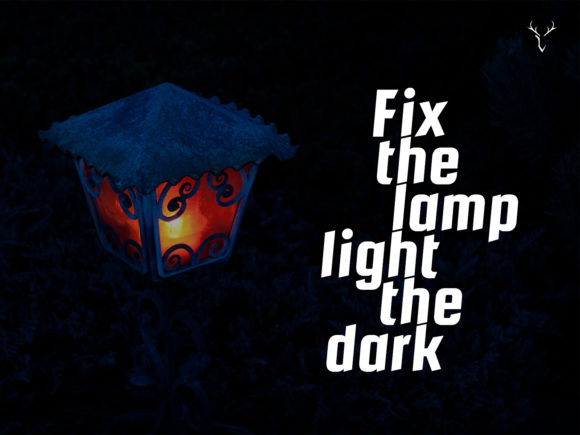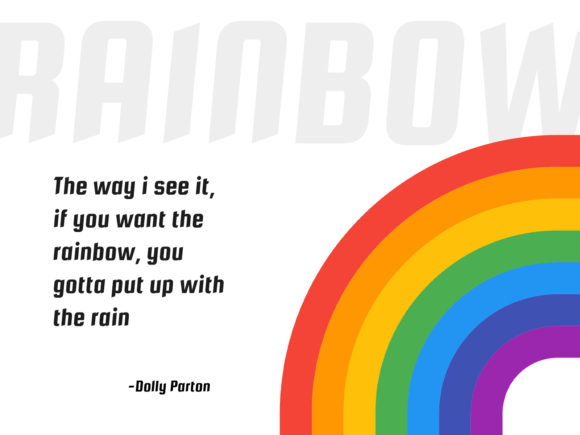
Discover the Power of Grey Font: Elevate Your Designs with a Modern Sans Serif Typeface
In the world of typography, fonts play a crucial role in conveying messages, expressing creativity, and capturing attention. For designers, crafters, and marketers, finding the perfect font can be a daunting task. However, if you’re looking for a modern and unique sans serif font that can elevate your designs, look no further than Grey Font. In this article, we’ll explore the features, benefits, and uses of Grey Font, and why it’s becoming a popular choice among designers and crafters.
What is Grey Font?
Grey Font is a modern sans serif font that exudes simplicity, elegance, and sophistication. Its clean lines, rounded edges, and balanced proportions make it perfect for a wide range of design applications, from headlines and branding to logotypes and marketing graphics. With its unique and distinctive style, Grey Font can help you create outstanding logos, promotional content, and visual materials that grab attention and leave a lasting impression.
Key Features of Grey Font
So, what makes Grey Font stand out from other sans serif fonts? Here are some of its key features:
- Modern and unique design: Grey Font boasts a fresh and contemporary design that’s perfect for modern brands and designs.
- Sans serif style: The font’s sans serif style gives it a clean and minimalist look that’s ideal for digital and print applications.
- High legibility: Grey Font is designed to be highly legible, making it perfect for body text, headlines, and titles.
- Versatile: The font is suitable for a wide range of design applications, from logos and branding to marketing graphics and promotional materials.
Uses of Grey Font
Grey Font is an incredibly versatile font that can be used in various design applications. Here are some of the ways you can use Grey Font:
- Headlines and titles: Use Grey Font to create bold and eye-catching headlines that grab attention.
- Branding and logotypes: Grey Font is perfect for creating unique and memorable brand identities and logotypes.
- Marketing graphics: Use Grey Font to create stunning marketing graphics, such as brochures, flyers, and posters.
- Logos: Grey Font is ideal for creating modern and sleek logos that represent your brand.
- Promotional materials: Use Grey Font to create promotional materials, such as business cards, letterheads, and envelopes.
Benefits of Using Grey Font
So, why should you choose Grey Font for your design projects? Here are some of the benefits of using Grey Font:
- Unique and distinctive style: Grey Font offers a fresh and unique style that sets it apart from other sans serif fonts.
- High versatility: The font is suitable for a wide range of design applications, making it a great addition to your font library.
- Easy to read: Grey Font is designed to be highly legible, making it perfect for body text and headlines.
- Modern and sophisticated look: Grey Font gives your designs a modern and sophisticated look that’s perfect for contemporary brands.
In conclusion, Grey Font is a modern and unique sans serif font that’s perfect for designers, crafters, and marketers looking to elevate their designs. With its clean lines, balanced proportions, and high legibility, Grey Font is suitable for a wide range of design applications, from headlines and branding to logotypes and marketing graphics. Whether you’re looking to create outstanding logos, promotional content, or marketing materials, Grey Font is an excellent choice. So, why not give Grey Font a try and experience the power of modern typography?